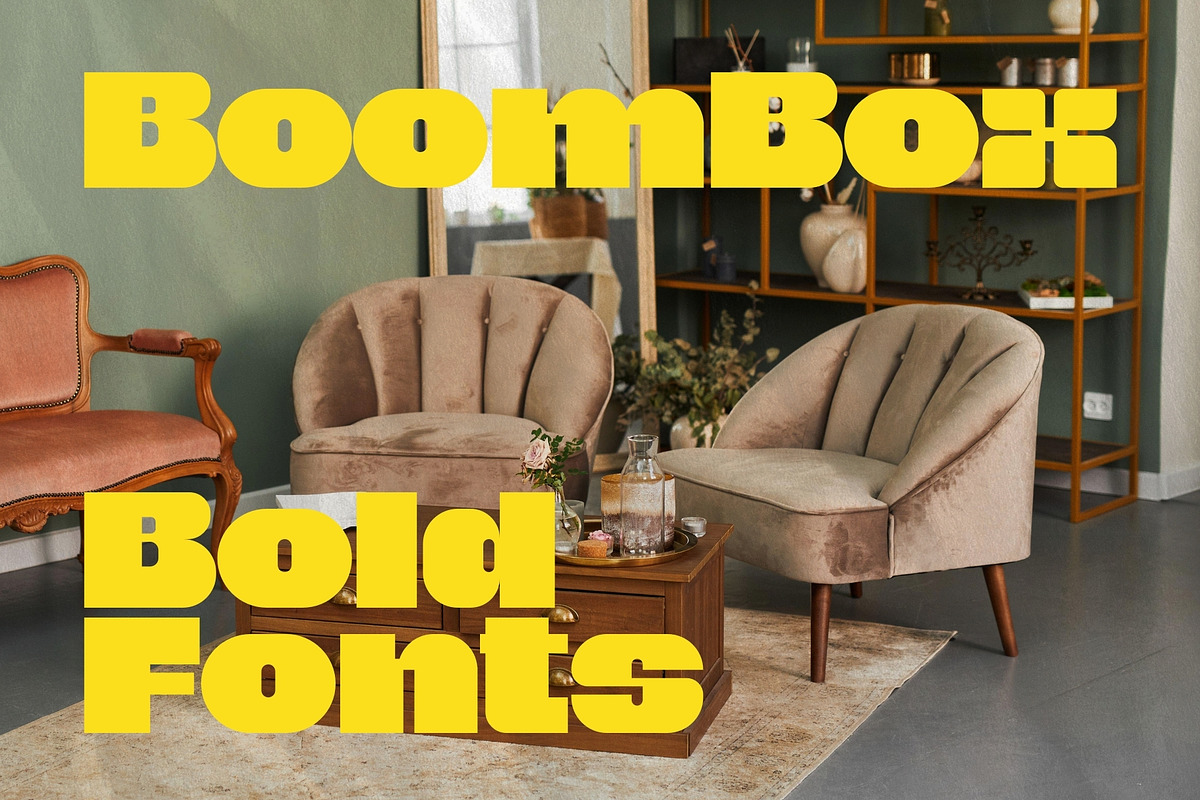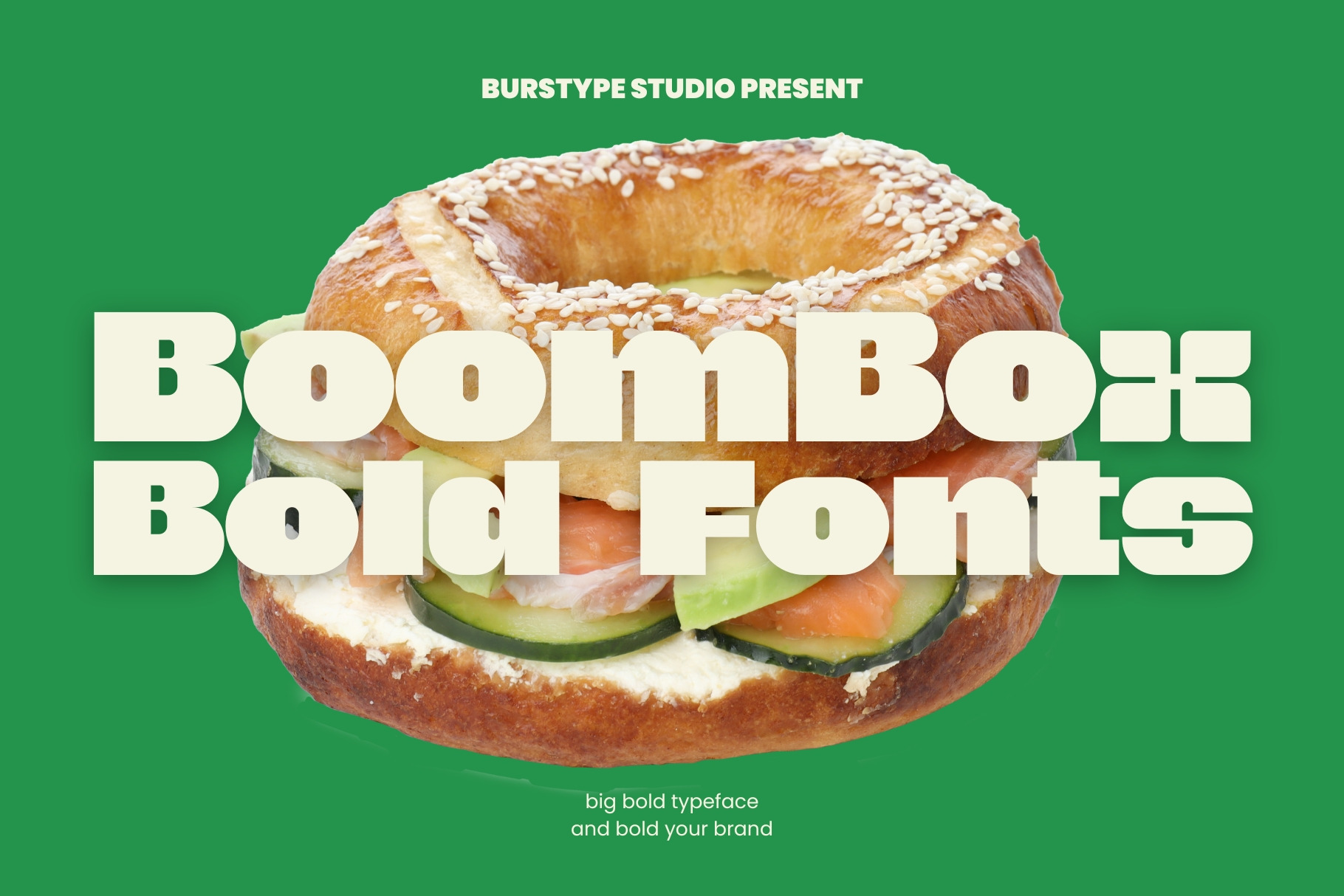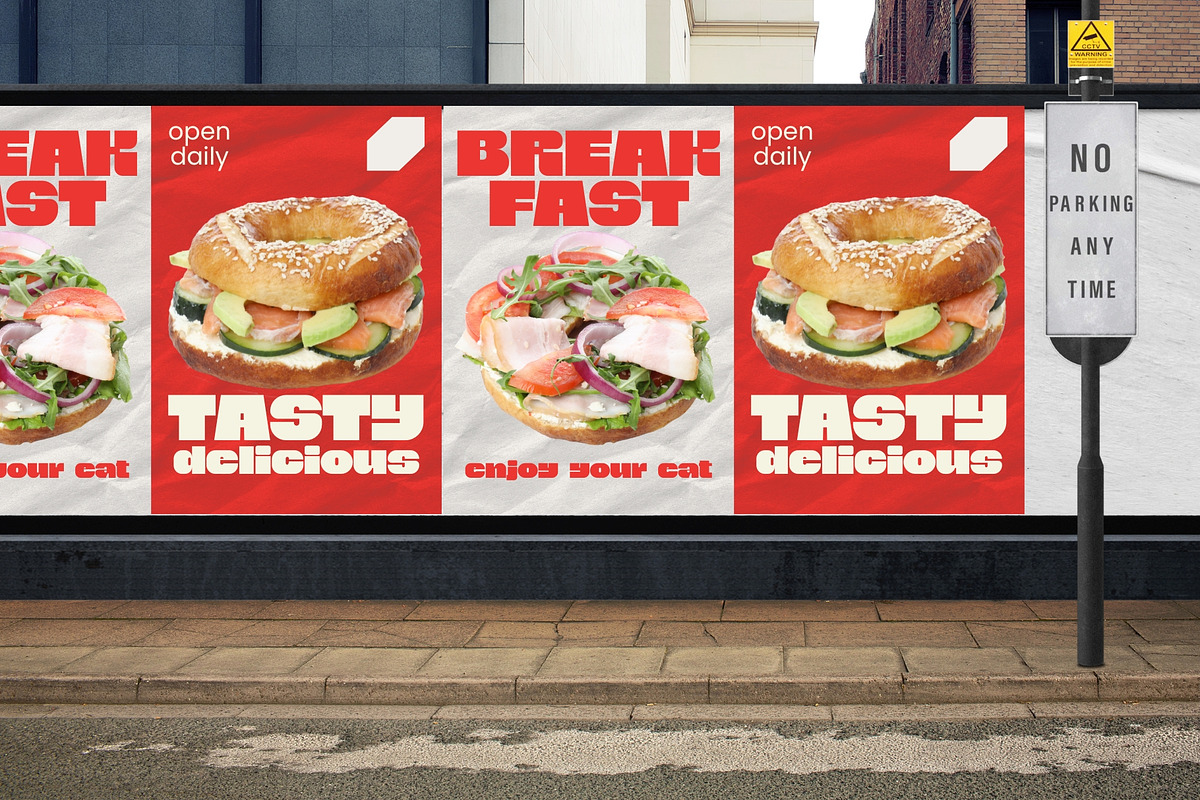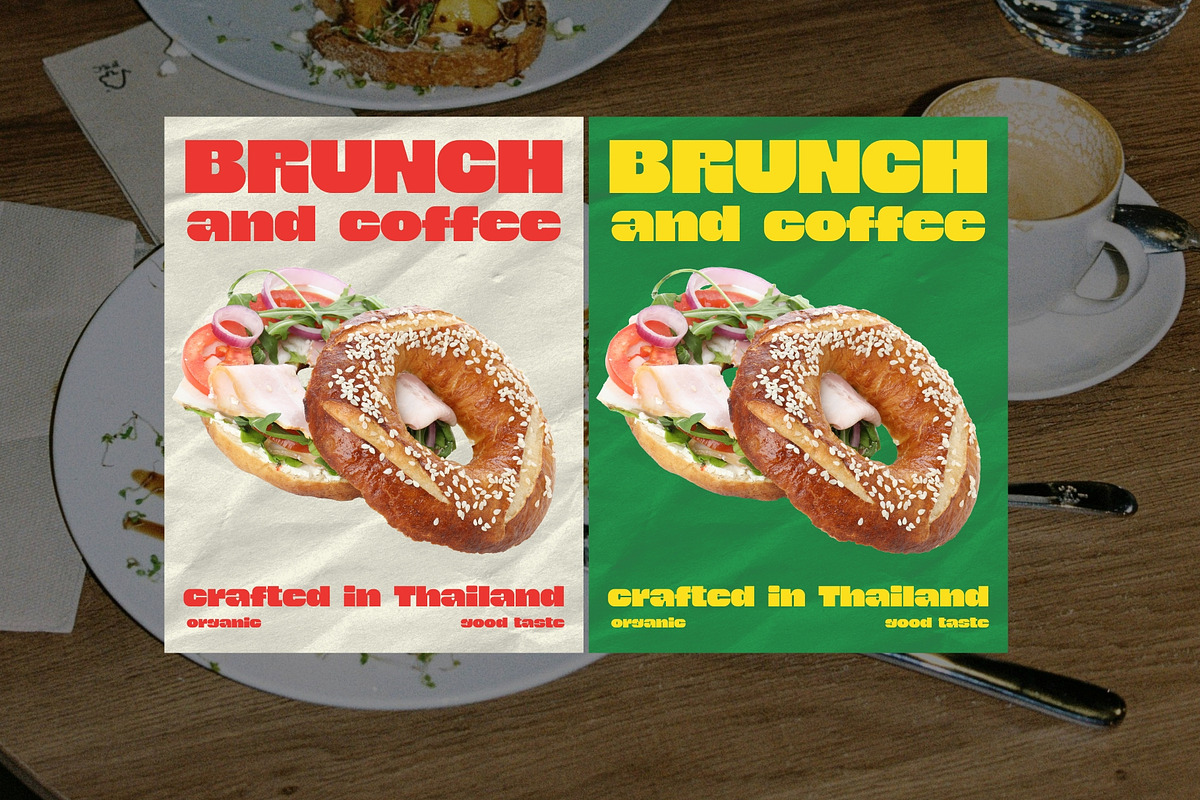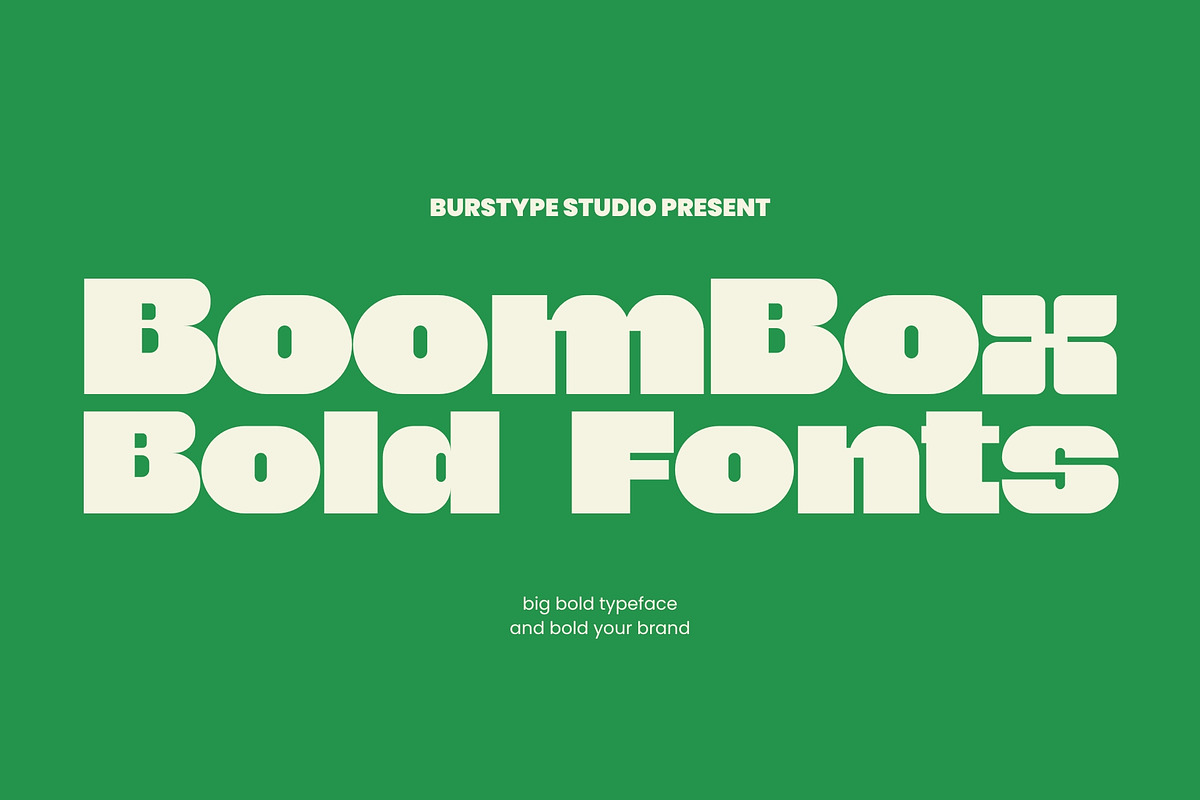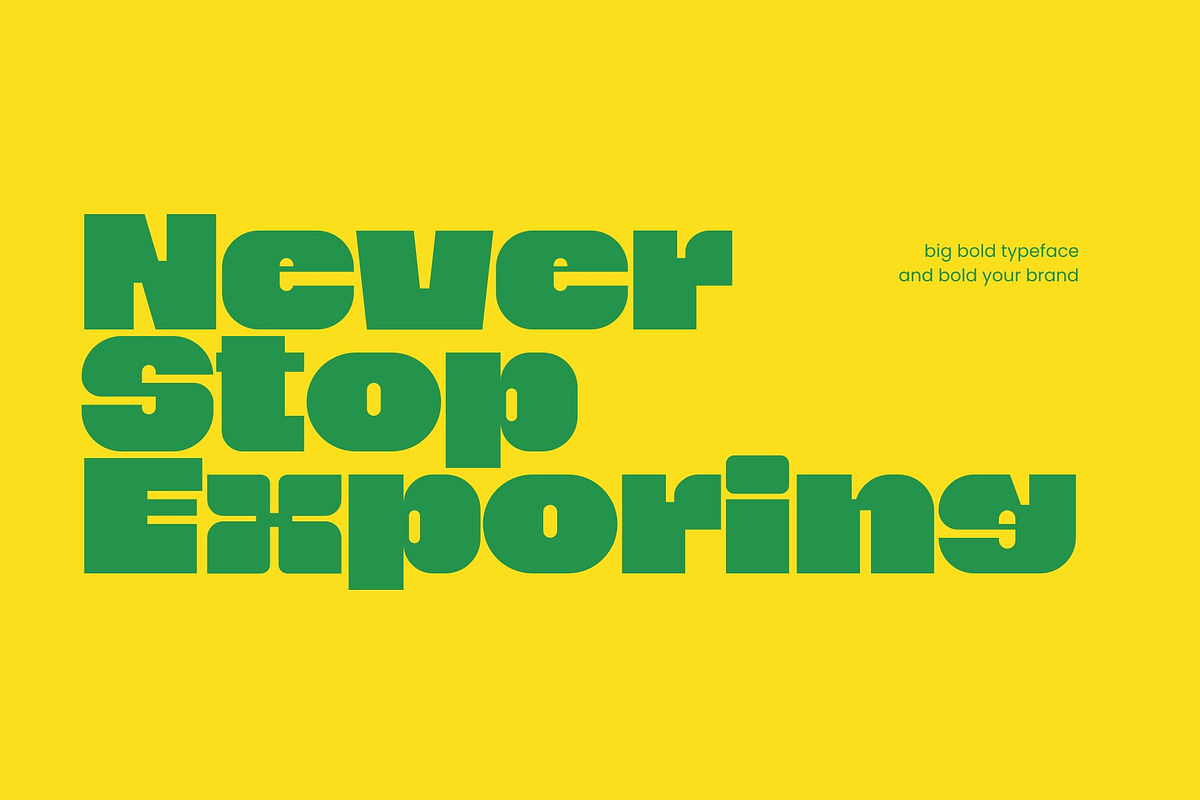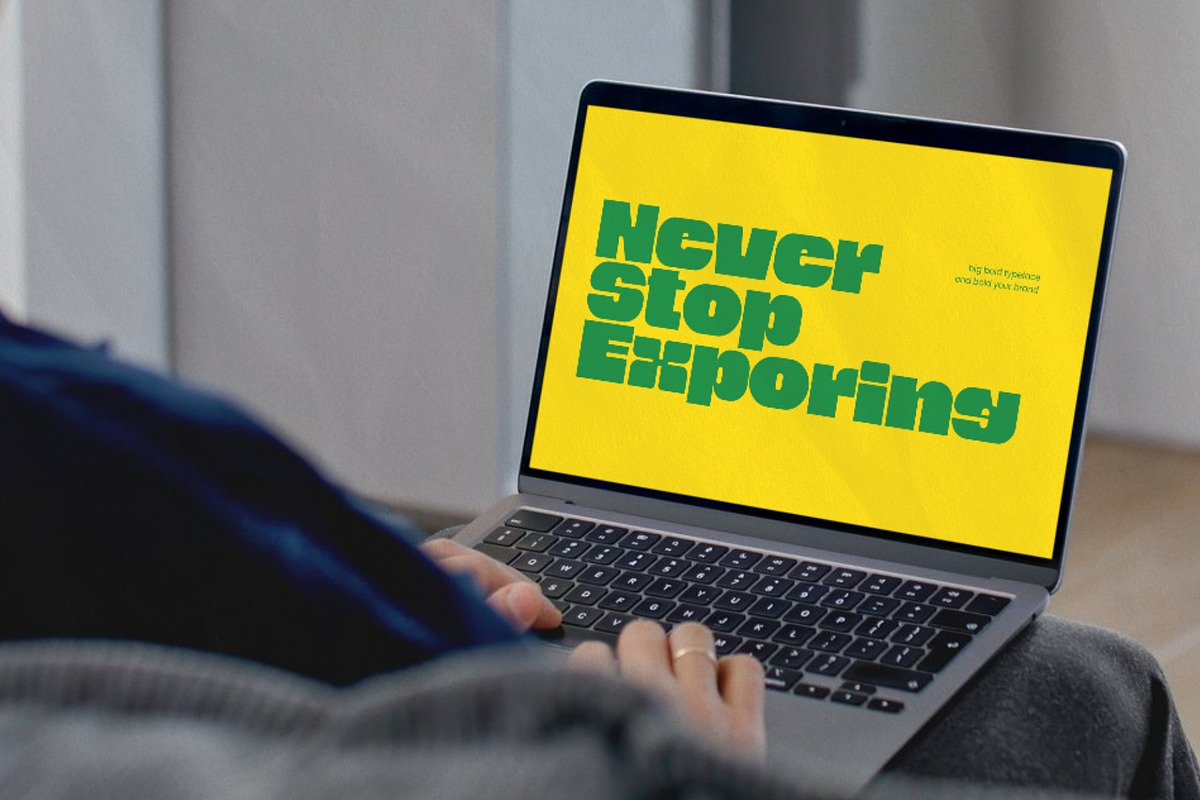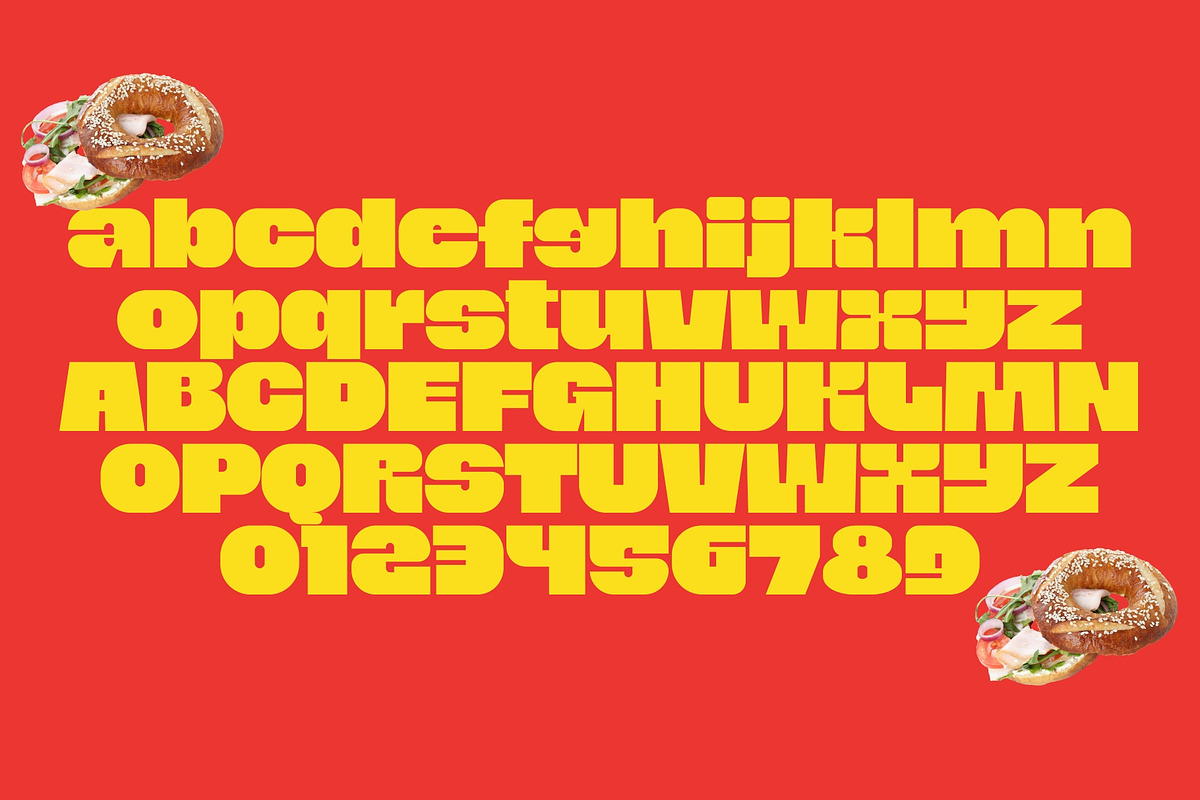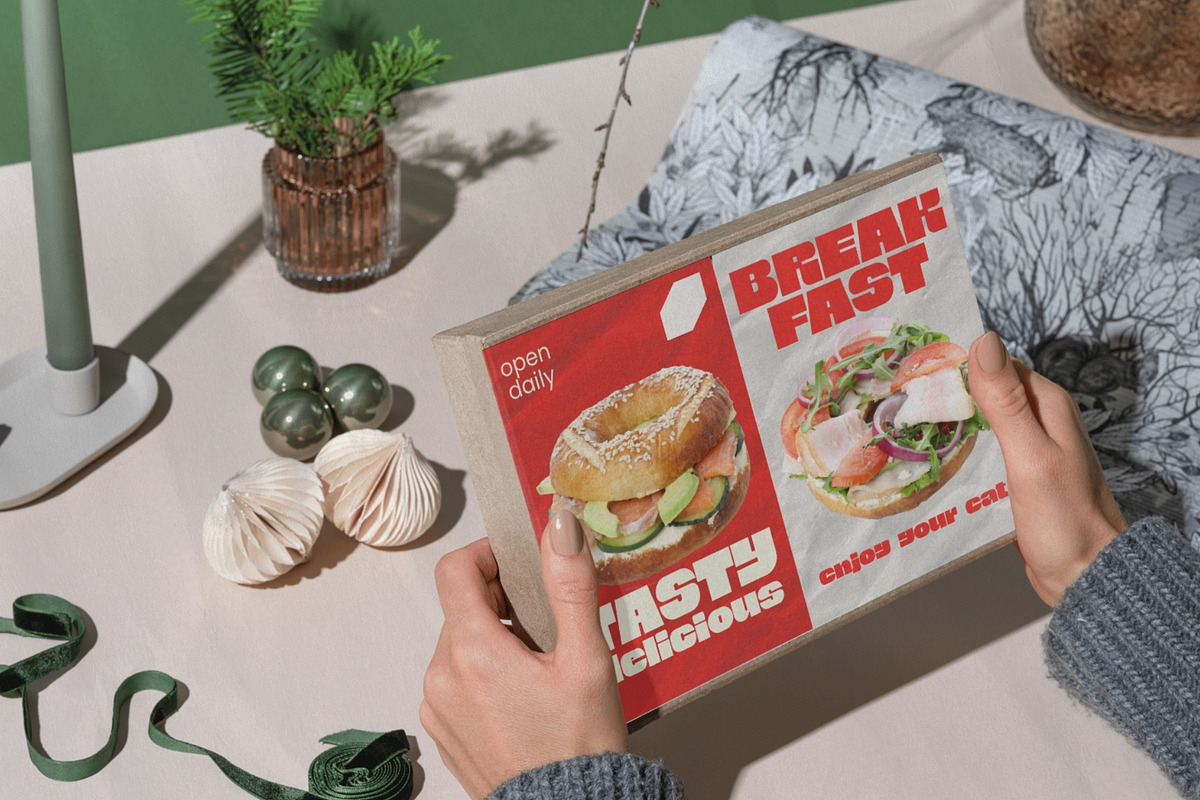
BoomBox Bold San serif Fonts
BoomBox Big Bold TYPEFACE : crafted by Burstype A Perfect Blend of Modern Design and Nostalgic Energy BoomBox is a striking display typeface that captures the bold, unapologetic spirit of vintage boombox culture while maintaining a contemporary edge. Crafted by Burstype, this font channels the raw energy and urban aesthetic of the 80s and 90s street culture, making it perfect for projects that demand attention and personality. Design Features The typeface features chunky, commanding letterforms with strong geometric foundations that echo the iconic silhouettes of classic portable stereos. Each character is designed to make a statement, with thick strokes and confident proportions that ensure maximum impact at any size. Ideal Applications BoomBox excels in: Music and entertainment branding Retro-inspired poster designs Album covers and promotional materials Urban fashion and streetwear graphics Logo design and brand identity Social media graphics and headers Event flyers and concert promotions The Nostalgic Appeal While firmly rooted in nostalgic aesthetics, BoomBox doesn't feel dated. It strikes that sweet spot between throwback charm and modern sophistication, making it versatile enough for contemporary projects that want to tap into that feel-good retro vibe without looking old-fashioned. By Burstype - A testament to thoughtful type design that honors the past while serving today's creative needs.